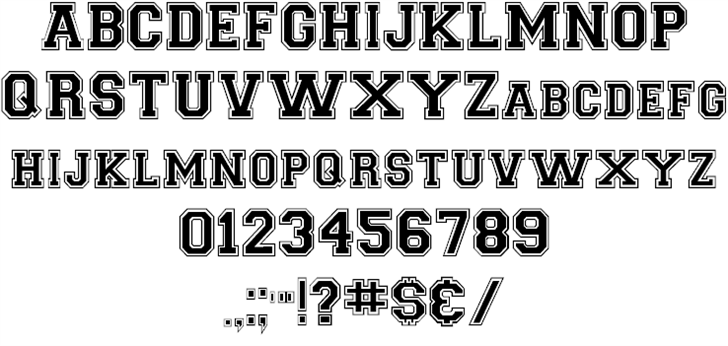
Architect and designer in Banda Aceh, Indonesia, b. 1980, who set up Grayscale, then 38 Lineart, and finally Fontsources. In 2018, he released the hexagonally-patterned color font Space, the nervous monoline display typeface Barcelona, the monoline script Brandy, the tattoo and metal band blackletter font Amstha, Twinkle (hexagonal texture), Premium Quality, Hightide (signage script), Ashley Pages, Bold Grunge (a wood style Western font), Rabbit House, Strongbold (brush style), Onthel (a rhythmic signage script), Cafeine, Seulanga (calligraphic), Sweet Bubble, Downhill, Architecture (technical writing font), Wisethink (rough brush), Emerald, Ghotic, Oakland (signage script), Parthenon (signage script), Strawberry Night (script), the formal calligraphic font Beauty Athena, the inline font Epicentrum, and the signature font Attitude in 2018. Typefaces from 2019: Ghoust (a marker font done at Cititype), Diamant Handwriting (a signature font), Utrecht (with Siti Saribanon Nurjannah), Exhibitionist (a fine rhythmic script), Holimount, Prague Metronome (a thin signature script), Allegroost (a brush typeface), Anisha (script), Kyoto Northern, ChiQuel (a Victorian display typeface that can be layered), Hillstone (a dry brush script), Malique, Ginchiest (a retro signage script), Kid Knowledge, Haghia, Khatija Calligraphy, Bernound, Graffity, Brandy Script (monoline), Downhill, Concept (sketched, blueprint font), Konya (signature script), Blacksmith, Curve Calibration (condensed sans). Typefaces from 2020: The Pallace (a great natural inky signature script by Muhammad Ridha Agusni and Siti Saribanon Nurjannah), Chipen (inline, all caps), Jakarta (a flowing inky script by Muhammad Ridha Agusni and Siti Saribanon Nurjannah), Rhode White (a great signature script by Muhammad Ridha Agusni and Siti Saribanon Nurjannah), Bailamore (a creamy signage script), Vogie (a sporty / techno sans family of 72 fonts, plus a variable font), Rollingtime (a brush script jointly designed by Muhammad Ridha Agusni and Siti Saribanon Nurjannah), Piedmont (a heavy connected handwriting script advertized as a masculine signature font), Whiplash (an all caps dry brush font), Aceh (a 36-style geometric sans), Youthink, Sacred Letter (a vintage weathered script), Serif Sketch (by Muhammad Ridha Agusni and Siti Saribanon Nurjannah), Corinthiago, Smart Chameleon (a handcrafted typewriter font by Muhammad Ridha Agusni and Siti Saribanon Nurjannah), Hiroshima Gyoshi (a brush font inspired by Japanese calligraphy), Roughmarker (dry marker font), Brotherhood, Blugie (a fat finger font), Rome Ionic (an all caps roman typeface), Black Orchestra (a great horror or black metal font), Black Orchestra (a horror font). Typefaces from 2021: Magreb (an 8-style renaissance serif typeface), Toxide (calligraphic; Celtic; uncial), Redtone (a 14-style geometric sans), Moula (an 18-style geometric sans for Latin, Greek and Cyrillic), Zouk (blackletter), Zagreb (an inky signature script by Muhammad Ridha Agusni and Siti Saribanon Nurjannah), Alsace (Victorian), Backbone (a black metal blackletter typeface), Roundkey (a 24-style condensed, but not round, sans), Wordwalker (a marker pen font by Muhammad Ridha Agusni and Siti Saribanon Nurjannah for Cititype), Sweet Bubble (a bubblicious font), Souljah (an elegant inky calligraphic script). Creative Fabrica link. Another Fontbundles link. [Google]
FontStructor who made these fonts in 2010: Reeph (wedge serif face), Theen (techno sans), Pewma (fat lettering as in the Puma logo), Clean (a gorgeous rounded elliptical sans), Ambdx (Treefrog-style hand), Twynn Open (dot matrix face), rnd0m, Arcbk-Open (stencil), Arcbk-Regular, Djeom (athletic lettering), Skwar (squarish), Bletr, Serif, Stens (white on black stencil), Strux, Outln (Regular, Shady: art deco meets athletic lettering), Kyrst, Phatt (ultra fat), Psych (a "Western", Italian face), Bloks, Twynn, Zilch, Cyrth (runic), Reimu (blackletter), Kaway (stencil), Kewte (rounded monoline), and Kurvh (dot matrix). Typefaces made in 2011: t4le (a tall piano key face inspired by In Her Memory by Softhunterdevil), Theek, Theek Open (blackboard bold face), Tukan, Theen, Fluid, Sharp (angular). Typefaces from 2012: Lined (stencil), amcbl. [Google]
Designer who used FontStruct in 2008 to create the tall piano key fonts Palo Alto and Palo Alto Rounded, the pixel font Fixedsys, the filled in black geometric typeface Fiasco, and the quite original SquareDotDot. In 2009, he added SSSeriffff (Western saloon face), Pamplinas (ultra black counterless display face), Fisko, aBus (kitchen tile), 123r1c (squarish). [Google]
- 2009: Wrongo 4F, Zantiqa (an über-serif), Serifiqo (a (free) thin didone fashion mag display face), Codename Coder 4F (monospace programming font), Droporado 4F (using circles only), Tovstun (futuristic, ultra-fat and rounded), Perfocard 4F, Modularico (five modular typefaces based on a logo from Master Kremenchug a company for which Sergiy worked for 4 years), Boldesqo Serif 4F (a splendid informal fat didone, now with Greek support), Tkachenko Sketch, Unicase Slab (a techno slab), Laftatic, Logofontik 4F (techno), PC.DE Stencil (+Italic; custom stencil font), Stenciliqo 4F, Tiap Liap 4F (handwriting), Nut Kit 4F, Rezzzistor 4F, the inline modular face Grand Hotel, and Bijou 4F.
- 2010: Roboo 4F (a bubblegum typeface family), PädIn (a custom typeface for Pädagogische Initiative e.V.: rounded fat informal face), Fat Quad (in the fatty trend), Veselka (a free multiline face), Smeshariki Black (+ Gleams: a bubble gum font made for an animation company), Republica 4F (a fat family), Rodeqa Slab 4F, ComFi (semi-octagonal), Grotesqa 4F, Nowy Geroy 4F, Fabryka 4F (a monospaced typewriter family), Placarto4F-Italic (an ultra fat art deco), Lavina 4F (a hairline sans with lachrymal terminals).
- 2011: Squartica (octagonal), Decomart (free), Model 4F Unicase (a unicase fat didone released in 2013 only), Fontatigo 4F, Kylie 4F (bilined and geometric), Waldemar 4F (a large didone style fat typeface family), Dinesqo (2011, a monoline sans of utter simplicity), Qargotesk (+Cyrillic) [images: i, ii, iii, iv], Neultica 4F (black unicase family), Squartiqa 4F (2011, constructivist), Clarenta 4F Black (after Clarendon---a great family), Designosaur (free sans), Perfopunto (based on perforated circles and squares), OlaScript 4F, Bayadera 4F (a tamed upright monoline script), Febrotesk4FUnicase (squarish unicase family).
- 2012: Targo 4F (rounded typeface with stencil and non-stencil styles), Myra (free font), Myra 4F Caps (free), Cedra (wide monolined sans face), Fontatica 4F (rounded techno grotesk), Akzentica 4F, Ukraintica 4F Wide (a monoline wide-bowled sans family), Laventa 4F, Sports World (free athletic lettering font), Web Serveroff (free computer geek font), Octin Spraypaint Cyrillic (a rough stencil done exclusively for Ninja Theory).
2013: Condesqa (modular sans), Esqadero (an uncomplicated monoline sans), Vanyla 4F Unicase (monoline), Esqadero FF CY (a free wide sans, Cyrillic), Bond (a confident no-frills sans), Attentica (free sans font for Latin and Cyrillic), Cedra 4F Wide Thin. - Cyrillizations: several typefaces such as Lavoisier (by Alec Julien), Budmo Jiggler (Ray Larabie) and JoAnne Display (Sandy Cerovich), Gnuolane (of a Ray Larabie font), Paranoid Cyrillic (based on Kevin Lo's Paranoid), Movavi Grotesque Black (+Cyrillic; image; numerals), Azoft Sans (made for Azoft, and free here and here).
- Latchkey Roman (2018). This is a digital revival of Lattice, a face designed by Carl/Charles E.Heyer (1841 Berlin–1897 Chicago). He patented it in October–December 1883 and assigned the rights to Arthur M. and Alson E. Barnhart by name (the firm was not yet incorporated). Among other things, his unique hooked C was probably inspired by the hint of a hook in Copley (a sign-painter face dated before or in 1877 and cut by J.F. Cumming in 1881-1884). As Heyer's talent flourished at BBS (Chicago, 1868–1929), he led his new employer from one loathed by traditional TFs for bartering stolen designs for newspaper advertising space to one at the forefront of truly innovative display types. In the history of this TF historically regarded as great, he conceived at least 50% of their designs. Thanks to Anna Allen for the background on Lattice. Thanks to Dan X. Solo for the complete specimen, which although inconsistent and ink-heavy for some characters, was complete as far as I know. I have substantially reworked this typeface to bring a consistency for modern-day typesetting, but it is entirely faithful to the original cutting. Several of the characters are adventurous for their time (the C and ampersand, for example).